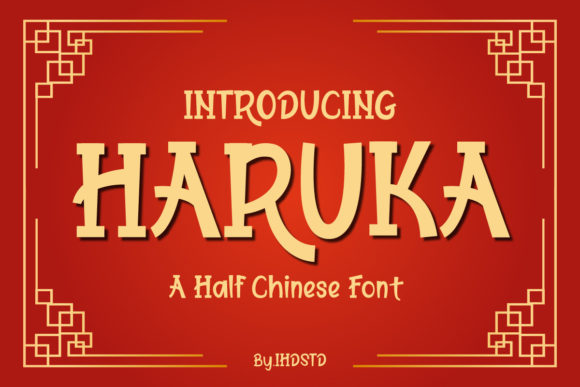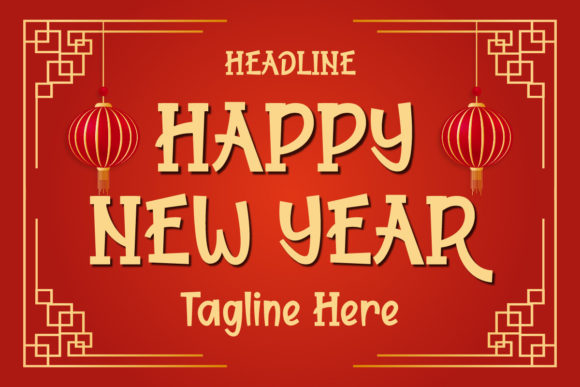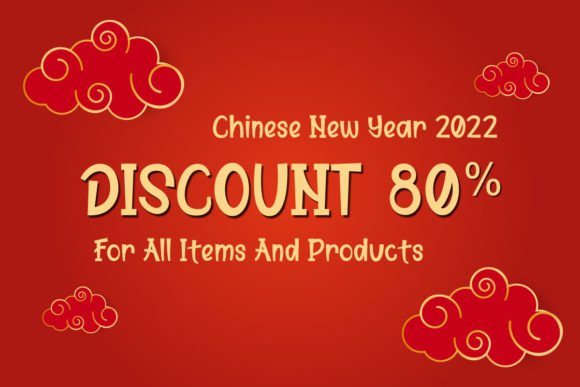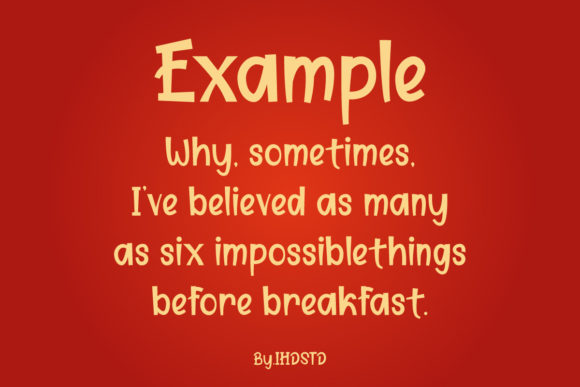
Haruka Font: Unique Chinese Inspired Display Font for Creative Projects
About the Haruka Font
We are excited to introduce Haruka Font, a must-have typeface for any serious designer. Haruka is a cool and uniquely designed display font. It is Chinese inspired and it will most certainly add an authentic touch to each of your creations.
Haruka’s strong, distinctive forms make it ideal for headlines, logos, and short impactful text within posters or branding materials. Its unique character lends itself well to projects requiring an authentic, culturally-inspired aesthetic. Avoid using Haruka for body text or long paragraphs; its bold strokes are not optimized for readability in extended use.
The font’s personality is bold and sophisticated, yet approachable. It would suit brands aiming for a modern yet heritage-conscious image – think artisan food products, cultural institutions, or high-end fashion.
To complement Haruka, consider pairing it with a clean sans-serif like Montserrat for body copy, or a delicate script font such as Lora for secondary text elements to add a touch of elegance. The contrast will enhance readability while maintaining a cohesive design language.